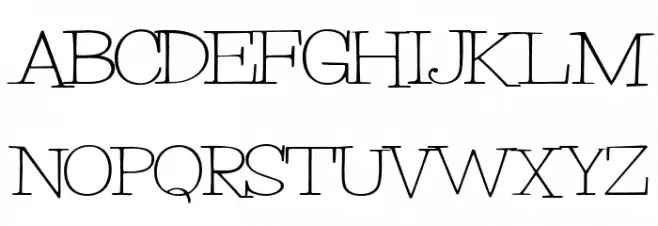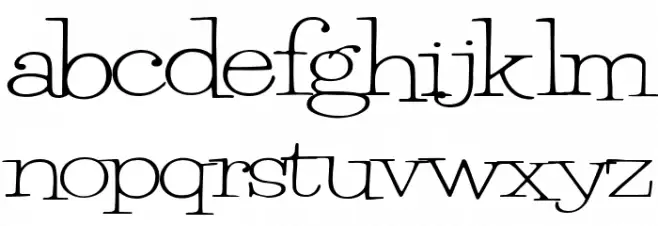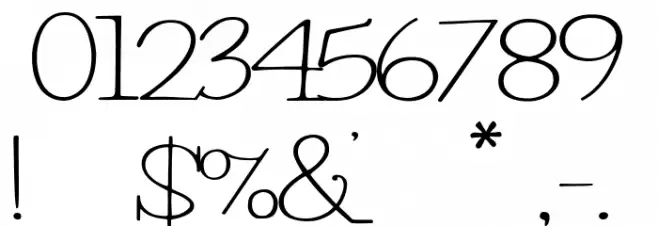
PetuniaBounce Font
This font was created from a scan of the Dover Publications book: Brushstroke and Free-Style Alphabets by Dan X. Solo. This typeface was used by designers in the 1950's and early 60's. Mario Arturo 1997